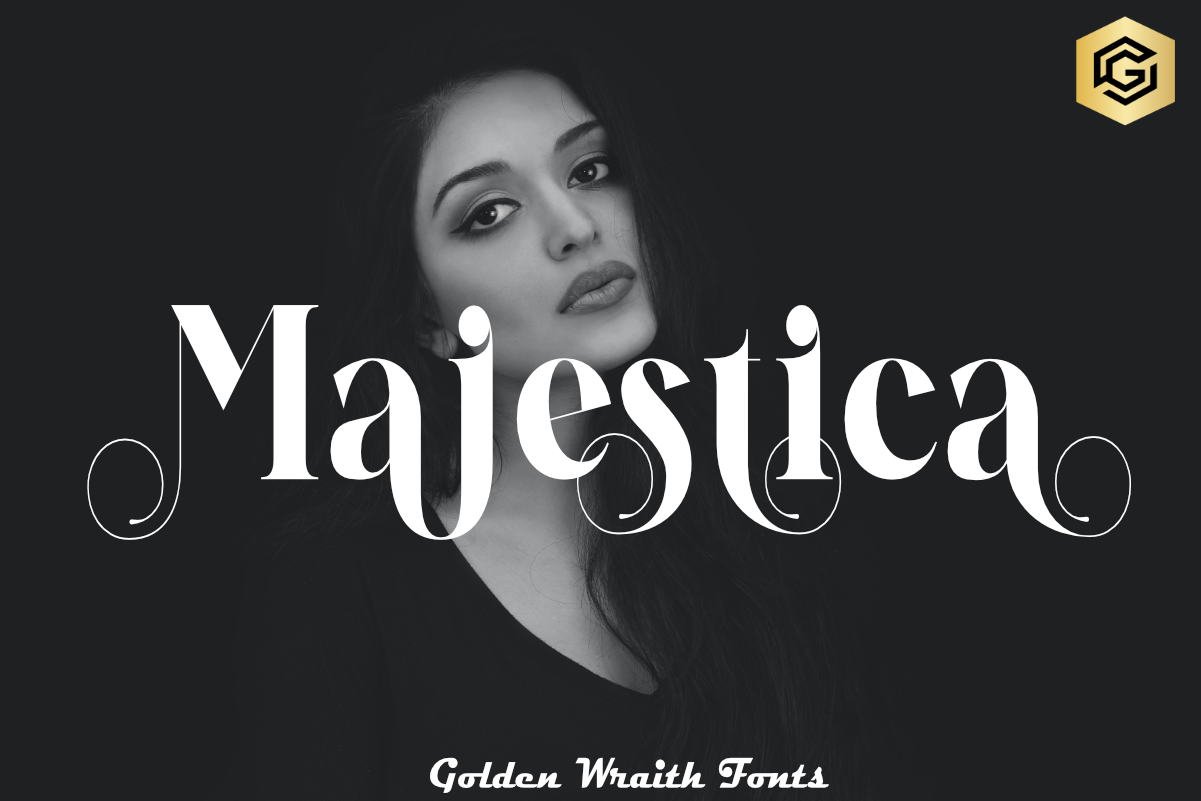
Majestica Font
“Majestica” is a handwritten font that radiates elegance and charm. Its fluid letterforms capture the grace of calligraphy, infusing a personal touch into designs. With delicate imperfections adding warmth, this font is perfect for wedding invitations, branding, and creative projects. “Majestica” celebrates the art of handwriting, offering a versatile and captivating option to elevate your designs with timeless allure.